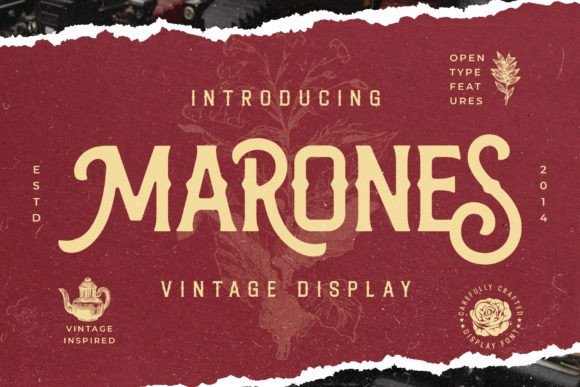
Marones Display Font
Marones Display Font is a handmade Modern Victorian handlettering, which is combining modern and classic typography with some awesome alternates. Made from font designer named Arterfak. This typeface is a display font with inky effect and spurs on the letterforms. Inspired by the old school garage and vintage logo, Marones has a strong look so that’s perfect for any display such as packaging, bottle, headline, logo, apparel, posters, stickers, craft projects, and more!